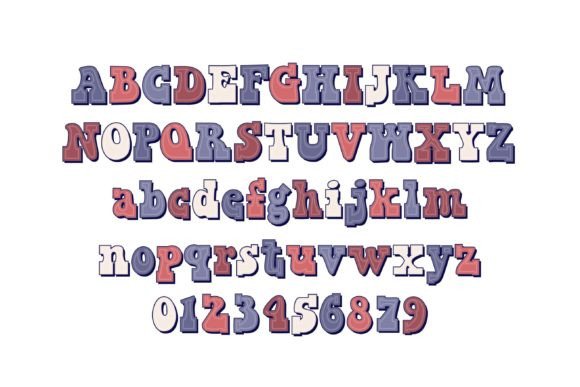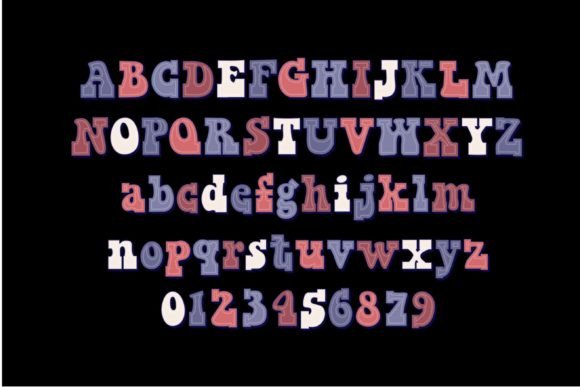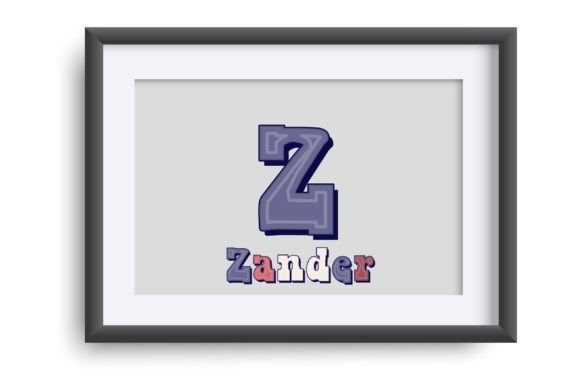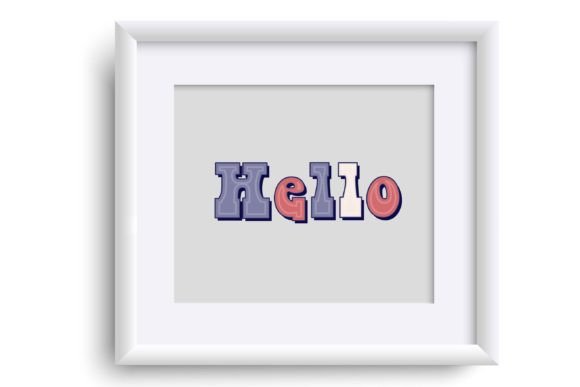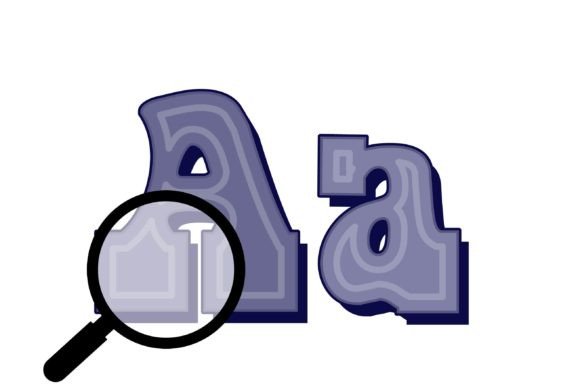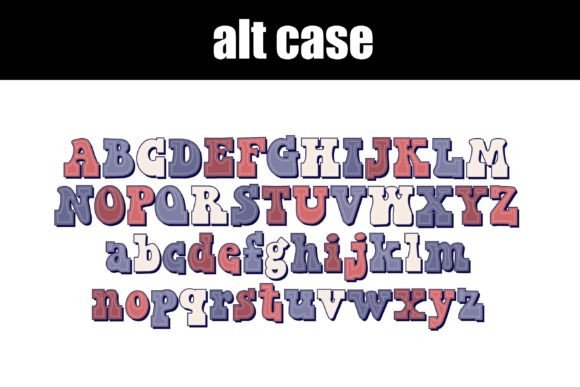
Introducing Americana Moves Font: A Retro-Inspired Full-Color Font
Are you looking for a unique and eye-catching font to add a touch of nostalgia to your designs? Look no further than the Americana Moves Font, a full-color font featuring retro lettering with a classic red, white, and blue color palette. This exciting font is perfect for designers and crafters who want to add a vintage flair to their projects.
What Makes Americana Moves Font Special?
The Americana Moves Font is a full-color OpenType font that uses SVG (Scalable Vector Graphics) technology to deliver vibrant, high-quality colors. This font is not just a simple text font, but a fully designed artwork that brings a retro feel to your designs. The font features a range of letters, numbers, and punctuation marks, all carefully crafted to give your projects a distinctive vintage look.
Key Features of Americana Moves Font
- Retro lettering style with a classic red, white, and blue color palette
- Full-color OpenType font using SVG technology
- Alt version available through your system’s character map, featuring additional colors for all letters
Tips for Using Americana Moves Font
To get the most out of the Americana Moves Font, keep the following tips in mind:
- Experiment with different colors by accessing the alt version through your system’s character map
- Combine with other design elements to create unique and eye-catching compositions
The Americana Moves Font is a unique and versatile full-color font that’s perfect for designers and crafters looking to add a touch of retro flair to their projects. With its classic red, white, and blue color palette and wide compatibility with popular design software, this font is sure to become a favorite in your design arsenal. So why wait? Download the Americana Moves Font today and start creating stunning, vintage-inspired designs!